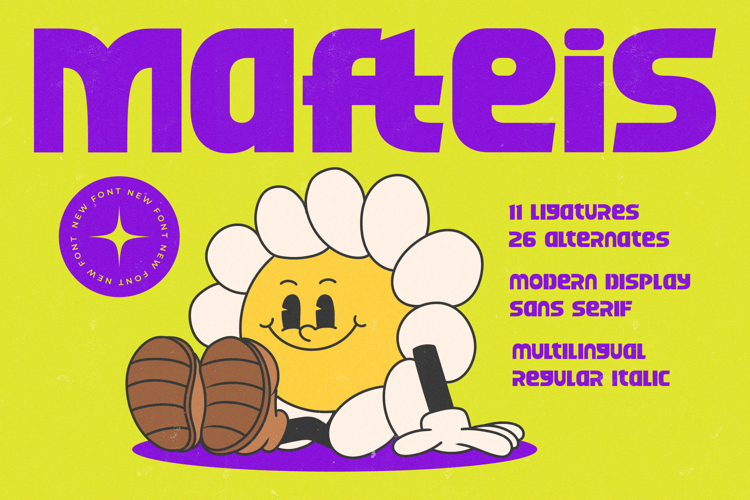
Mafteis - Modern Display Sans Serif
Unleash unparalleled visual impact with Mafteis - Modern Display Sans Serif, a typeface engineered to command attention. Its bold, robust forms and confident curves create an unmistakable presence, perfect for designs that demand to be noticed. This modern display sans serif font blends a sophisticated structure with a friendly appeal, making it an ideal choice for creating memorable and engaging headlines and titles that pop.
Elevate your design projects with Mafteis - Modern Display Sans Serif's exceptional typographic features. Featuring an impressive array of 11 ligatures and 26 alternates, this font offers unparalleled creative flexibility. These meticulously crafted stylistic sets provide designers with the tools to generate truly unique typographic expressions, ensuring every piece of communication stands out with a bespoke feel.